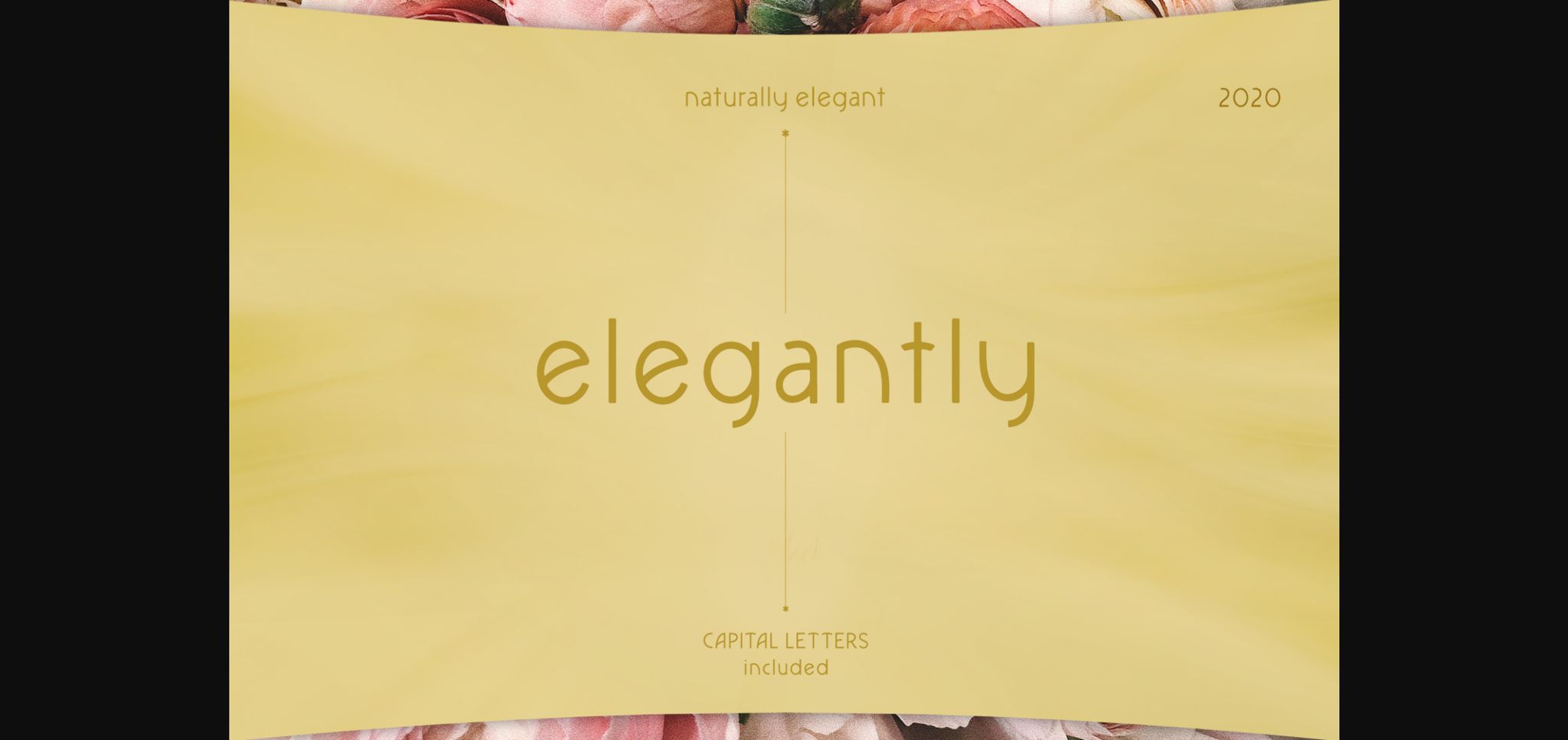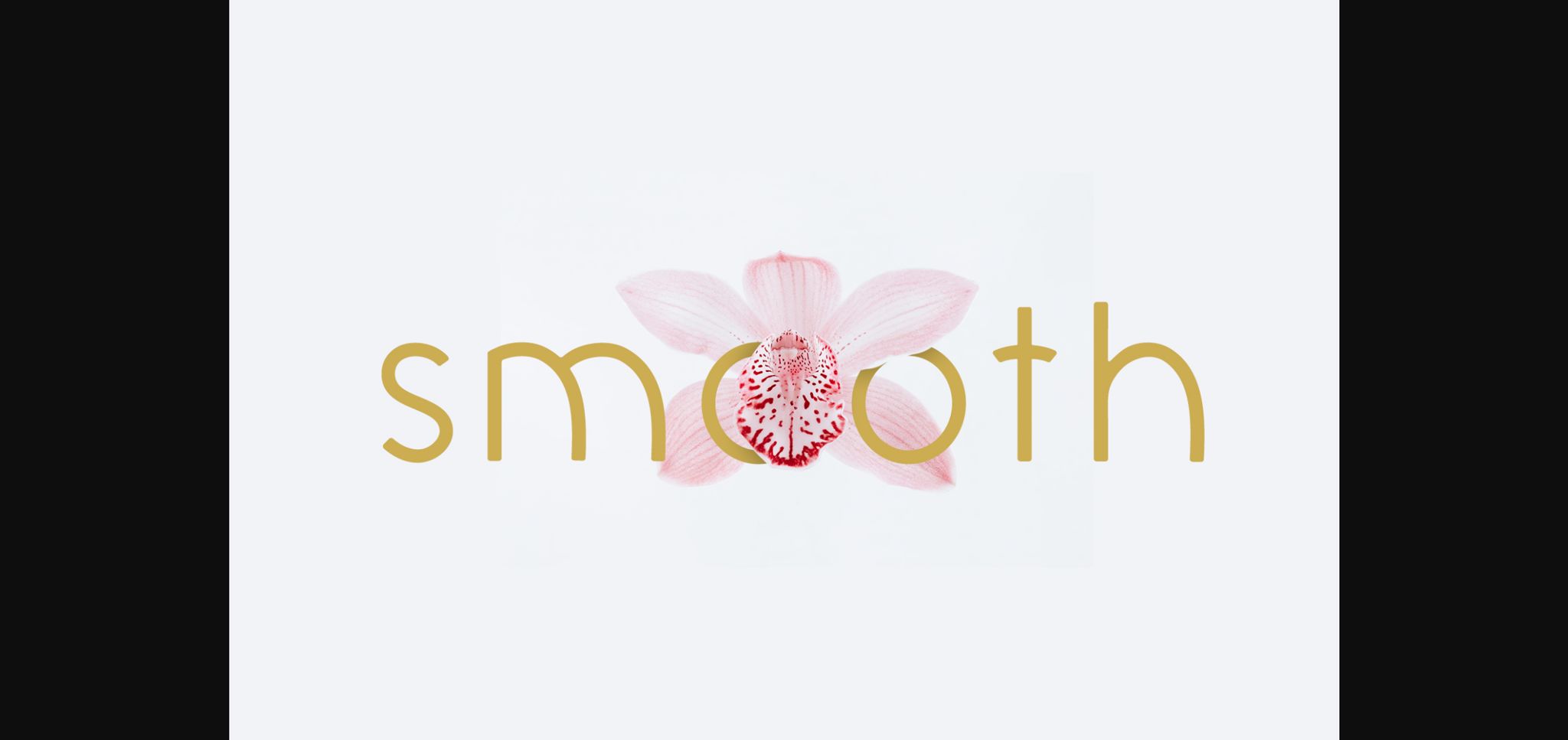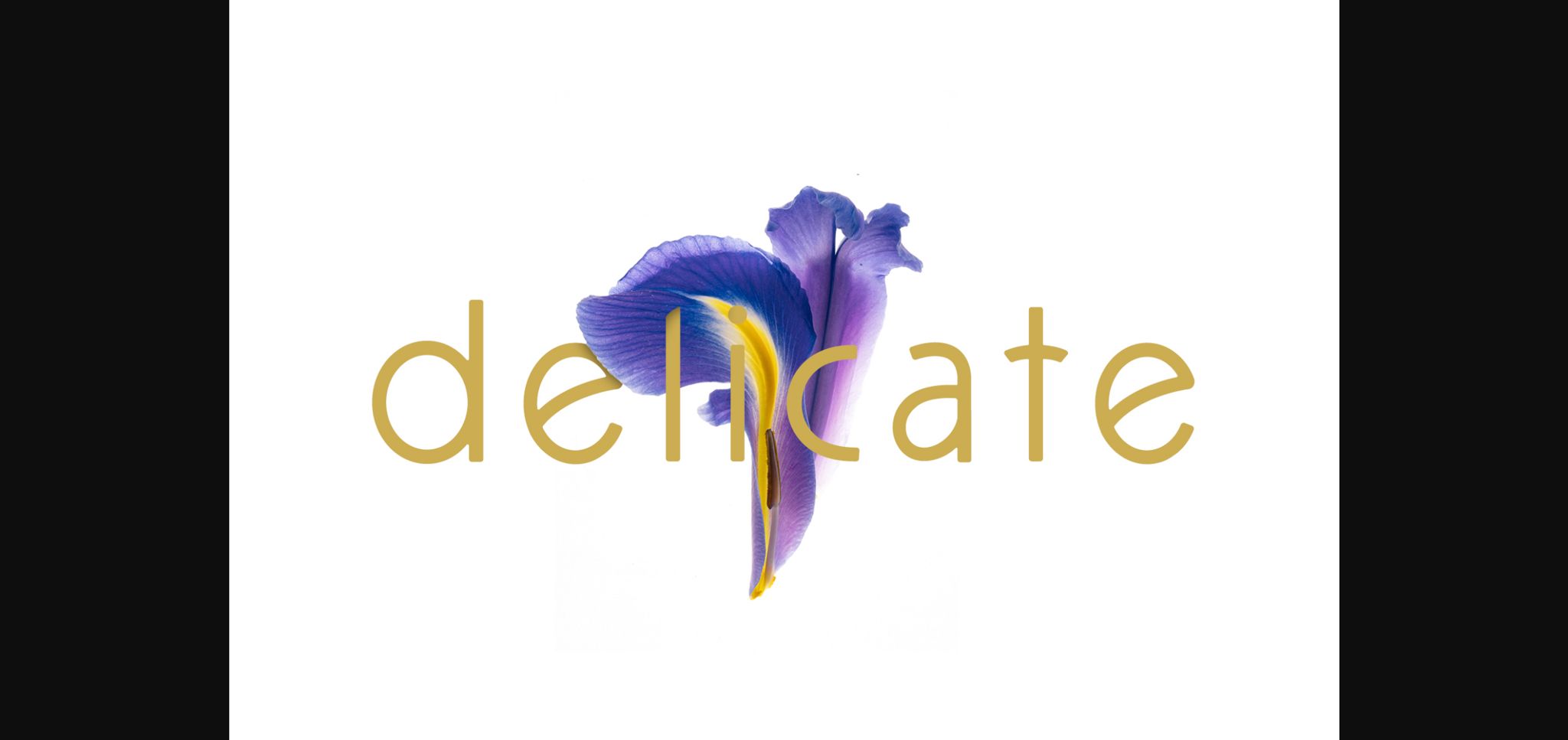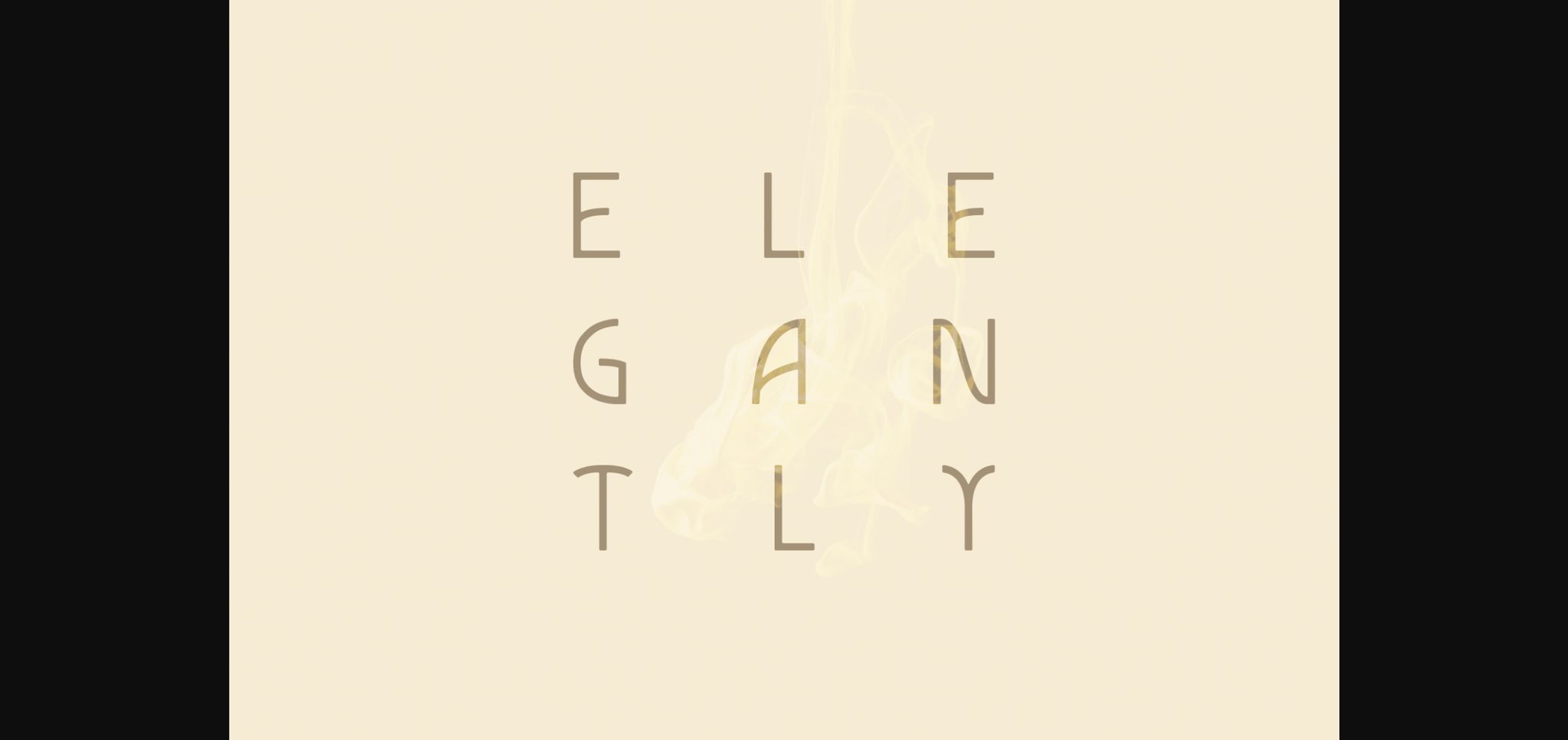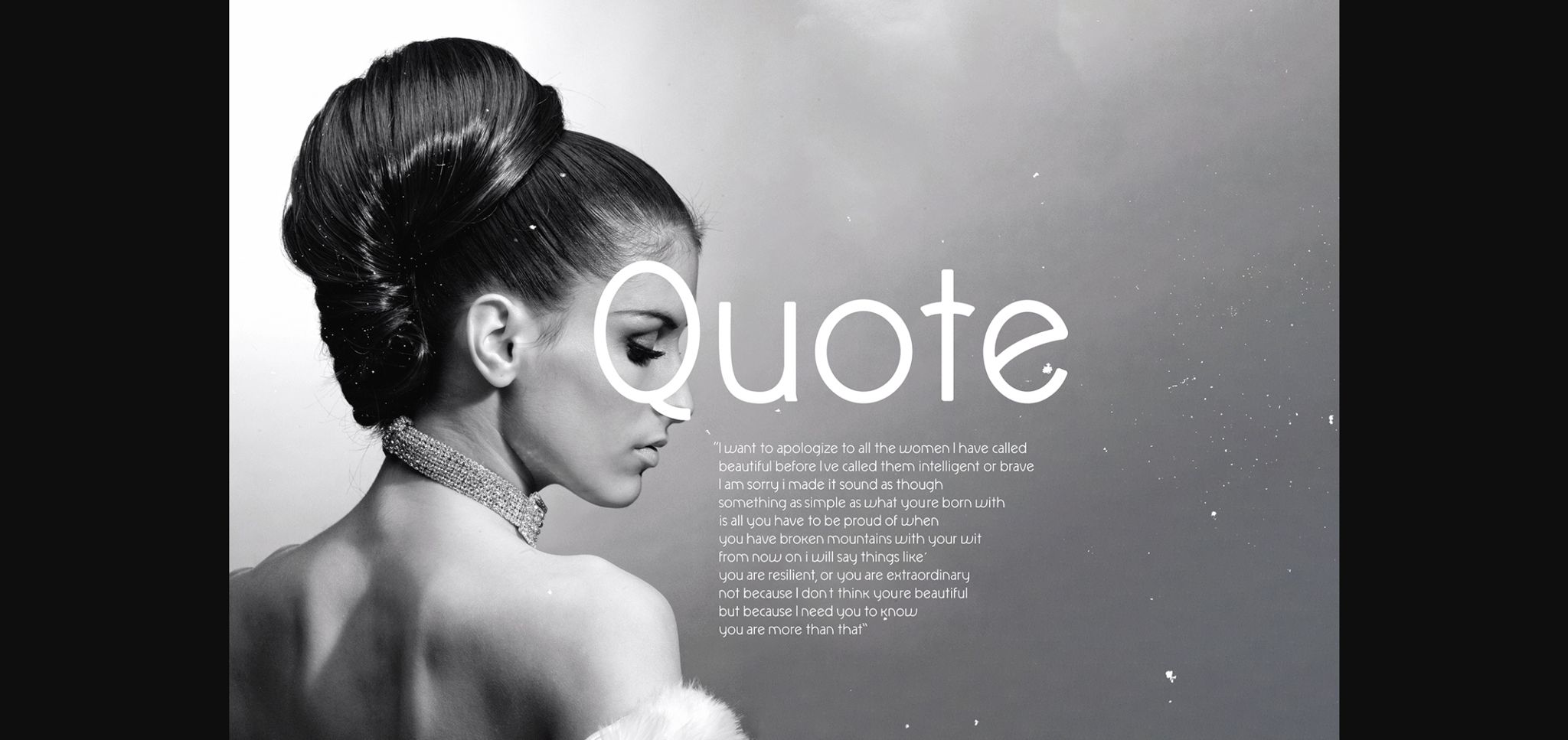
About Elegantly Font
Elegantly is a clean lettered and incredibly versatile sans serif font. Due to its balanced characters and simple style, Elegantly will elevate a wide variety of designs to the highest level!